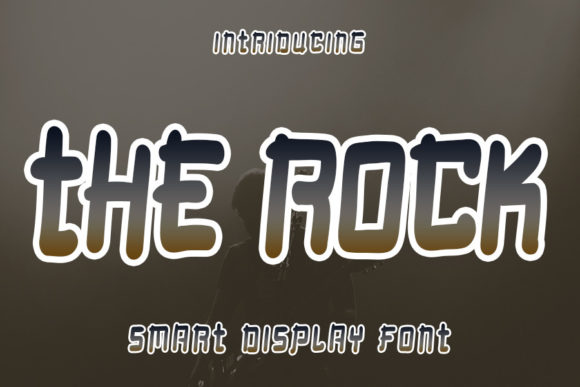
Unleash your creativity and embark on a typographic adventure with The Roock Font, a captivating display font family crafted by the visionary minds at FL Space. Dive into a world of endless possibilities and let your designs flourish with this extraordinary font.
The Roock Font exudes charm and playfulness, adding a touch of whimsy to your projects. Whether you're crafting school notes, greeting cards, social media graphics, or eye-catching logos, this font is your perfect companion. Its versatility extends to branding, posters, and even invitations, leaving an unforgettable impression on your audience.
With The Roock Font, you'll discover a treasure trove of variations, allowing you to explore a diverse range of typographic styles. Experiment with different weights, sizes, and colors to achieve a look that uniquely reflects your creative vision. The possibilities are limitless, promising an exceptional user experience with every design.
This font family is more than just a collection of letters; it's an invitation to let your imagination soar. Its neat and organized style brings clarity and sophistication to your designs, while its flexibility empowers you to adapt it seamlessly to any project.
So, why settle for ordinary when you can embrace the extraordinary? Let The Roock Font ignite your creativity and transform your designs into mesmerizing works of art. Its user-friendly interface, coupled with its stunning visual appeal, makes it the ideal choice for both professional designers and creative enthusiasts alike.